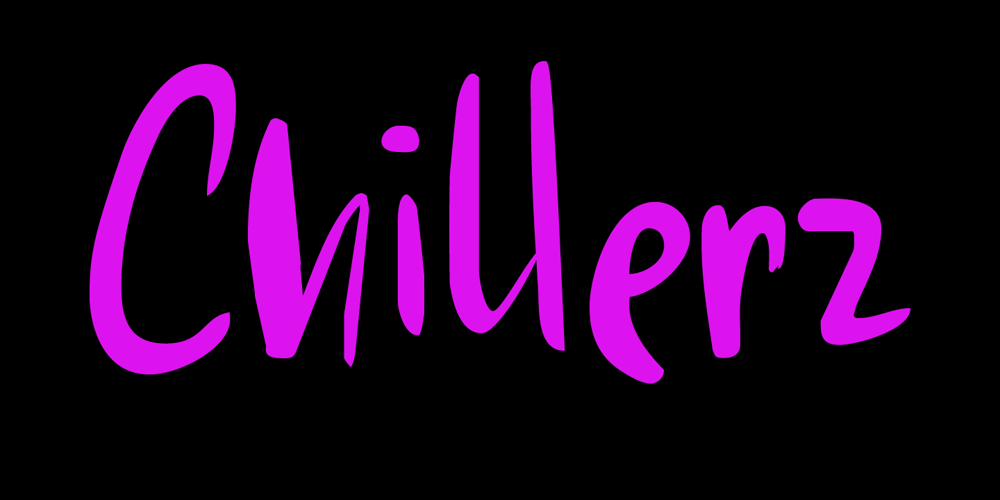
Chillerz Font Family was designed by David Kerkhoff and published by Hanoded. Chillerz contains 2 styles and family package options. I was doodling away on a piece of paper, when I noticed that the weird letters I was producing were in fact a nice font. So, I decided to build it! Chillerz is a lovely, messy handmade script font. It comes with double letter ligatures, a healthy attitude and a relaxed fit.